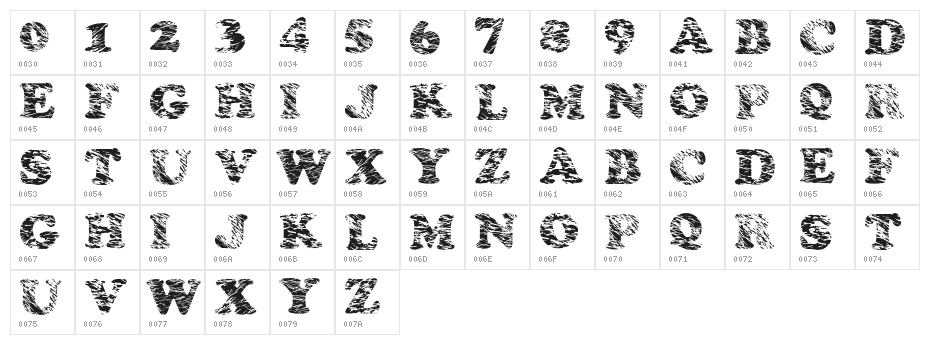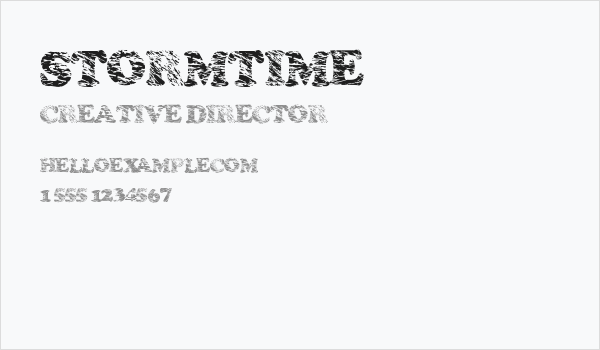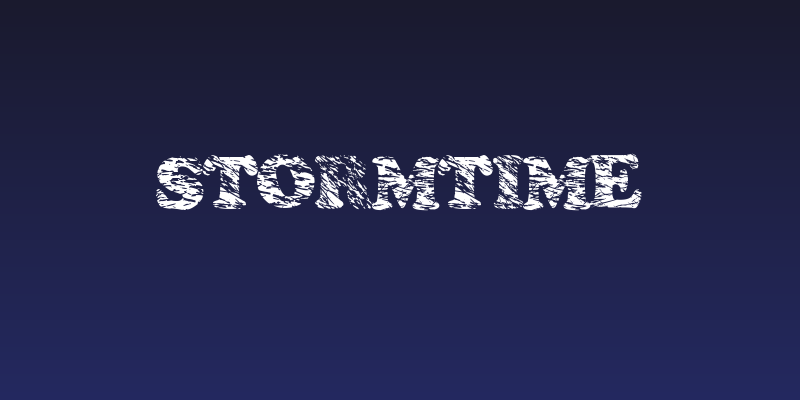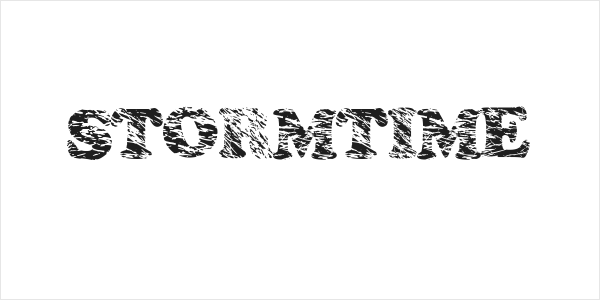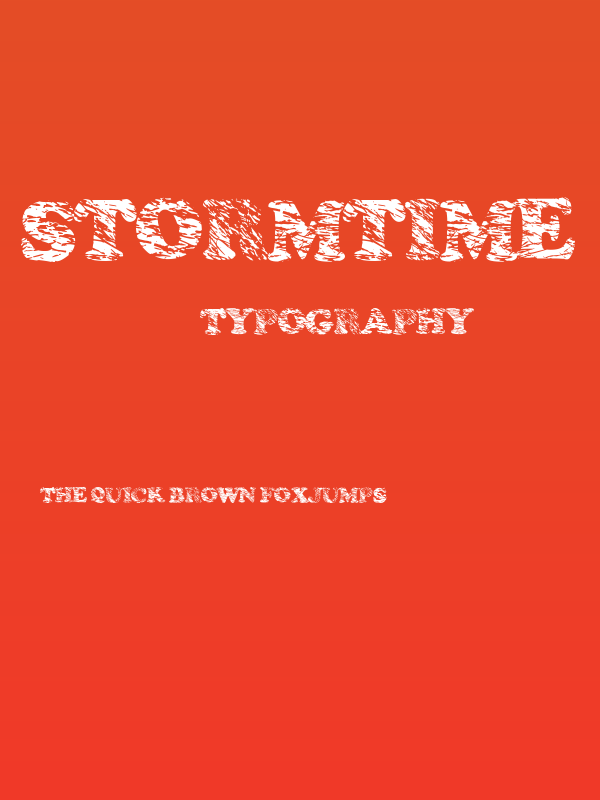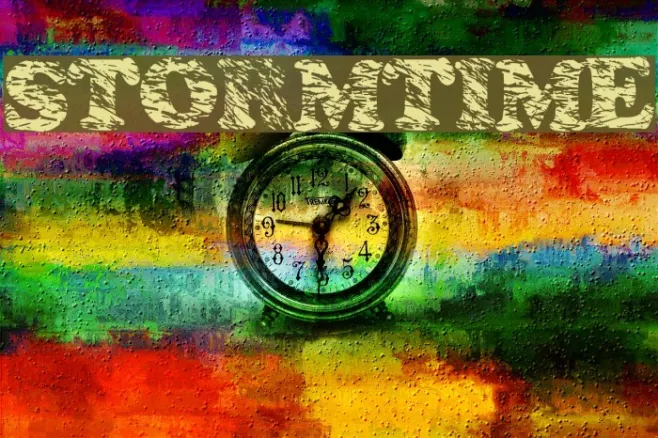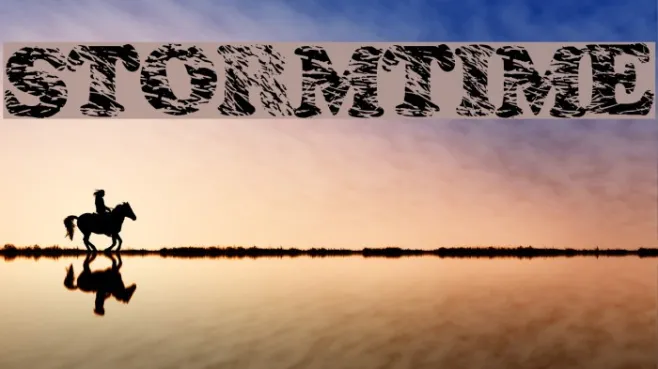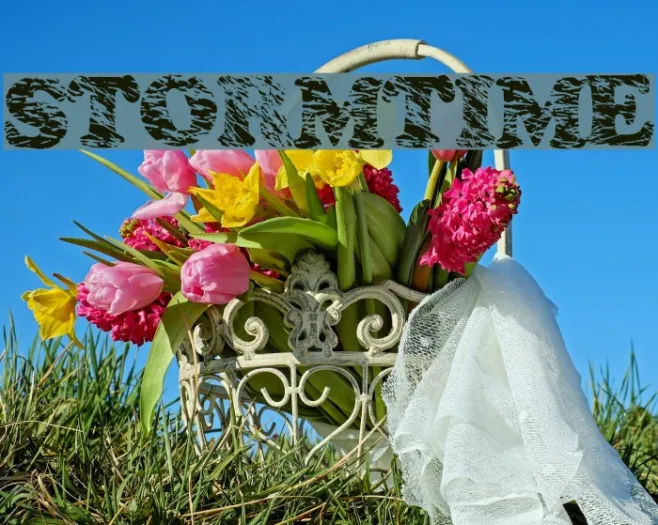
stormtime Font
stormtime Description
This font features a bold and dynamic design with a distressed, textured appearance that mimics the effect of being weathered by a storm. The characters are robust and impactful, with a rough, scratchy surface that adds a sense of movement and energy. The uppercase and lowercase letters maintain a consistent style, while the numbers and special characters are equally bold and textured. This font is perfect for creating eye-catching designs that require a rugged and adventurous aesthetic.
| Proposed Projects | Ideal for adventure-themed posters, outdoor event flyers, and branding for rugged products. |